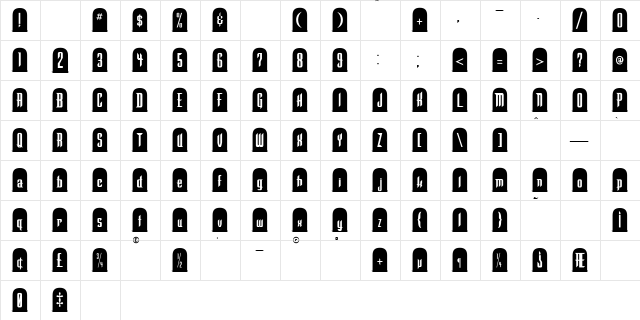
Tombstone Regular
Design Context for Tombstone Typeface
Tombstone is a composed and adaptable typeface that performs quietly and consistently across a wide range of design contexts.